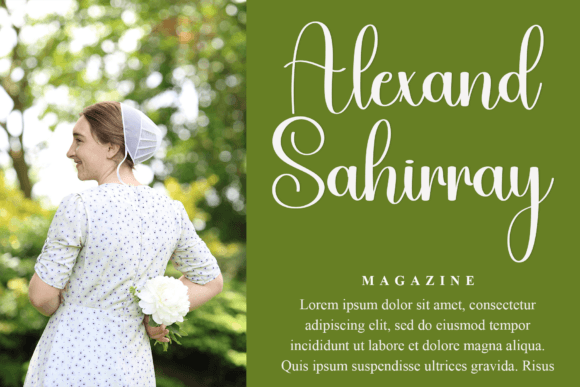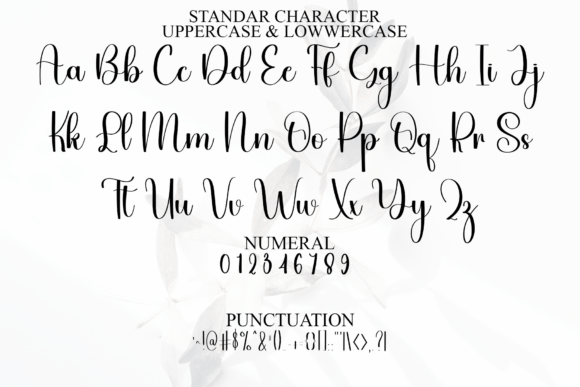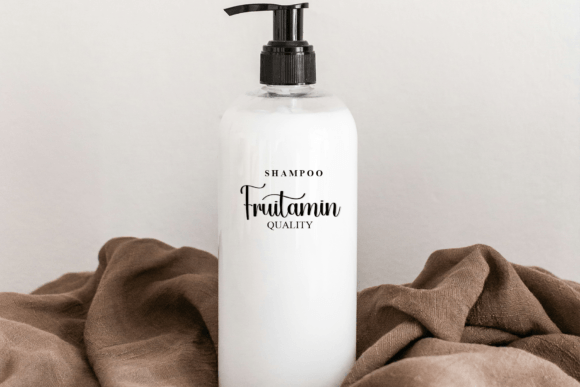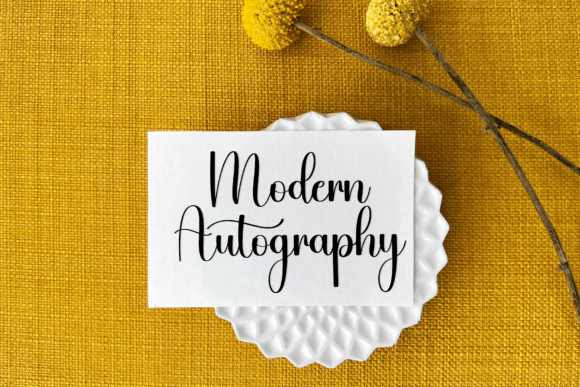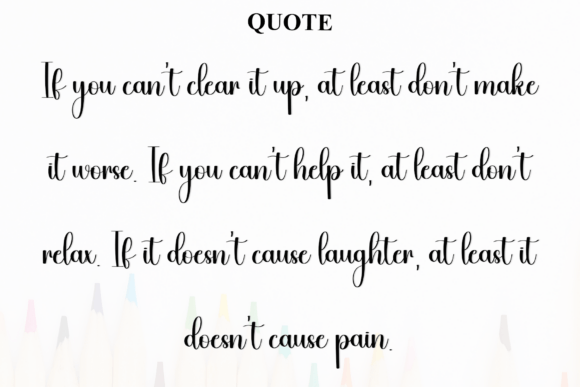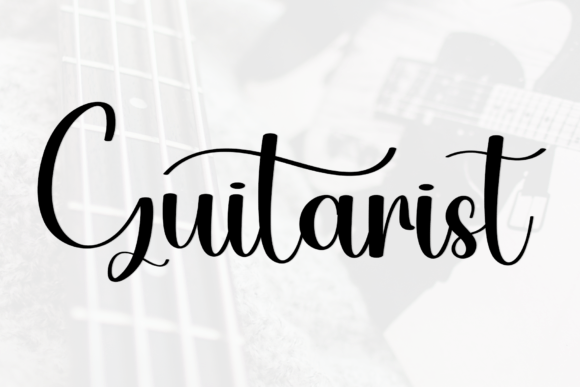
Guitar Vintage Font: A Festive and Merry Typeface for Holiday Designs
As the holiday season approaches, designers and crafters are on the lookout for typography that captures the spirit of the festive times. If you’re looking for a font that embodies the magic of the holidays, look no further than Guitar Vintage Font. This enchanting typeface is designed to bring a touch of nostalgia and whimsy to your designs, making it perfect for greeting cards, gift tags, and holiday-themed projects.
The Charm of Guitar Vintage Font
Guitar Vintage Font is a decorative typeface that exudes a cheerful and merry vibe. Its unique design elements and whimsical flair make it an ideal choice for adding a touch of enchantment to your words. The font’s festive and nostalgic ambiance is sure to captivate your audience and leave a lasting impression. Whether you’re designing holiday greeting cards, gift tags, or social media posts, Guitar Vintage Font is the perfect choice to make your designs shine.
Key Features of Guitar Vintage Font
- Decorative Elements: Guitar Vintage Font features decorative elements that add a touch of whimsy and festivity to your designs.
- Whimsical Flair: The font’s unique design gives it a playful and nostalgic feel that’s perfect for holiday-themed projects.
- Multilingual Support: The font supports multiple languages, making it a versatile choice for designers and crafters worldwide.
Uses for Guitar Vintage Font
Guitar Vintage Font is a versatile typeface that can be used for a variety of holiday-themed projects, including:
- Greeting Cards: Create festive and merry greeting cards that capture the spirit of the holiday season.
- Gift Tags: Add a touch of enchantment to your gift tags with Guitar Vintage Font’s decorative elements and whimsical flair.
- Social Media Posts: Make your holiday social media posts stand out with Guitar Vintage Font’s unique and festive design.
- Holiday-Themed Projects: Use Guitar Vintage Font to add a touch of nostalgia and whimsy to your holiday-themed projects, such as flyers, brochures, and posters.